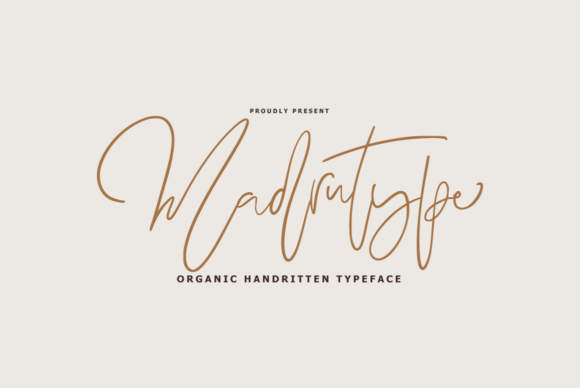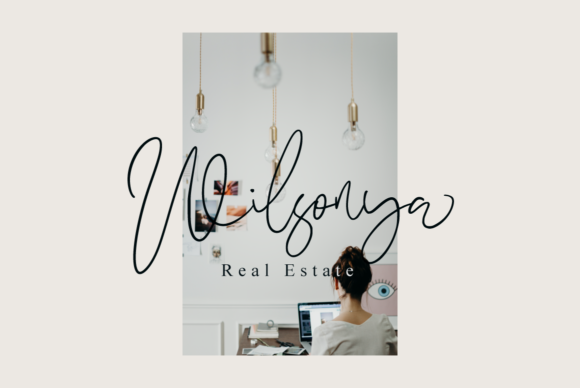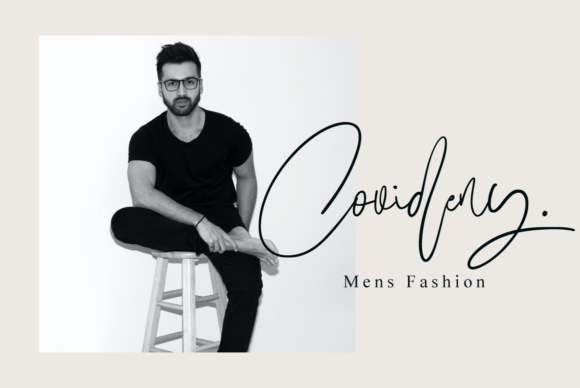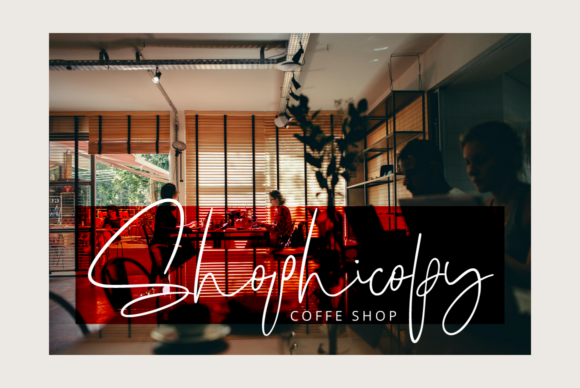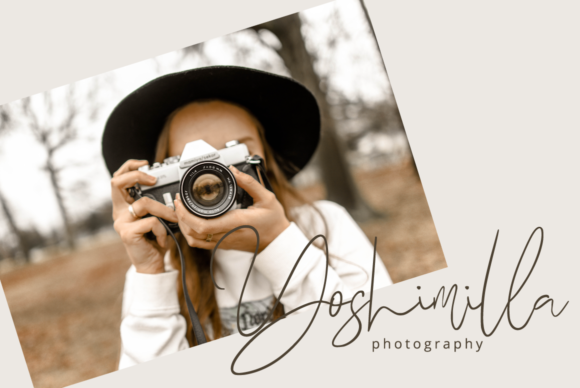
Madrutype Font
About Madrutype Font
Madrutype is a relaxed and stylish handwritten font. It has a clean, thin and smooth vibe and it will be a hit for any design that you want to add it to. This font is PUA encoded which means you can access all of the glyphs and swashes with ease!